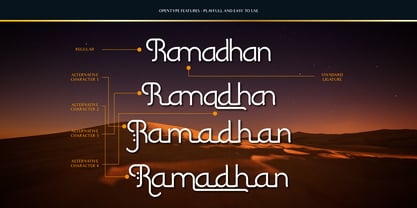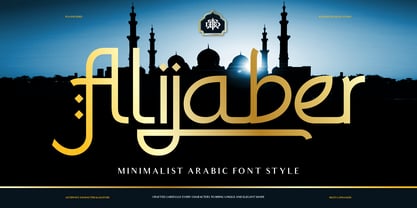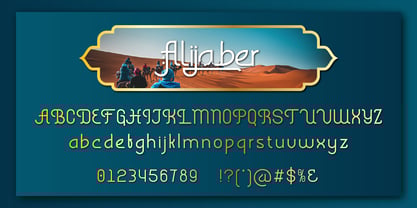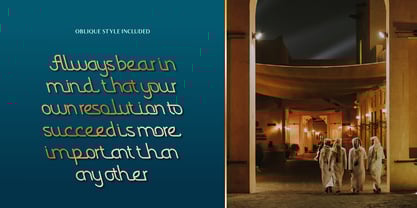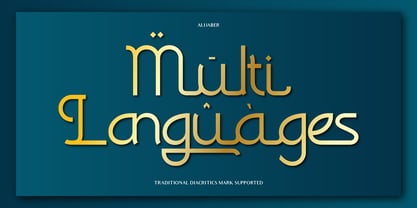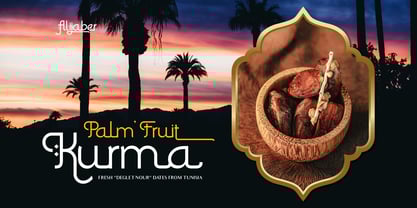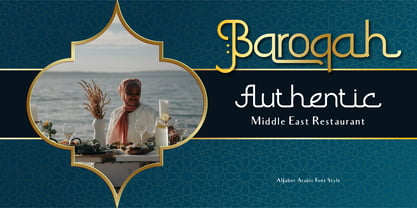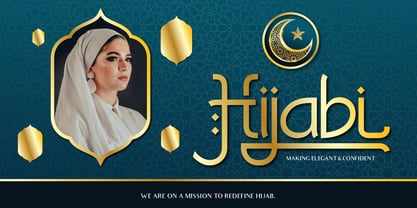
Alijaber
The Alijaber Font Family was designed by Eric Kurniawan and published by Burntilldead. Alijaber contains 2 styles and family package options.
Introducing Alijaber, a minimalist Arabic font style. This font uses latin characters, so this font perfect for any design project that need an Arabic, Islamic or middle eastern touch. Not only that, this font has multilingual features, making it suitable for global use. Since this is a sans serif so this font easy to read, modern and timeless. This font have 2 styles: regular and oblique. The ligature and alternates in Alijaber add a middle eastern vibe, makes this font unique and distinctive character. Ideal for logotypes, invitation, cards, branding, headers, letterheads, apparel, magazine, books, and much more.
Features:
• A - Z set (Uppercase & Lowercase)
• Number
• Punctuation
• Alternates
• Ligatures
• Multilingual
• Alijaber Characters Map